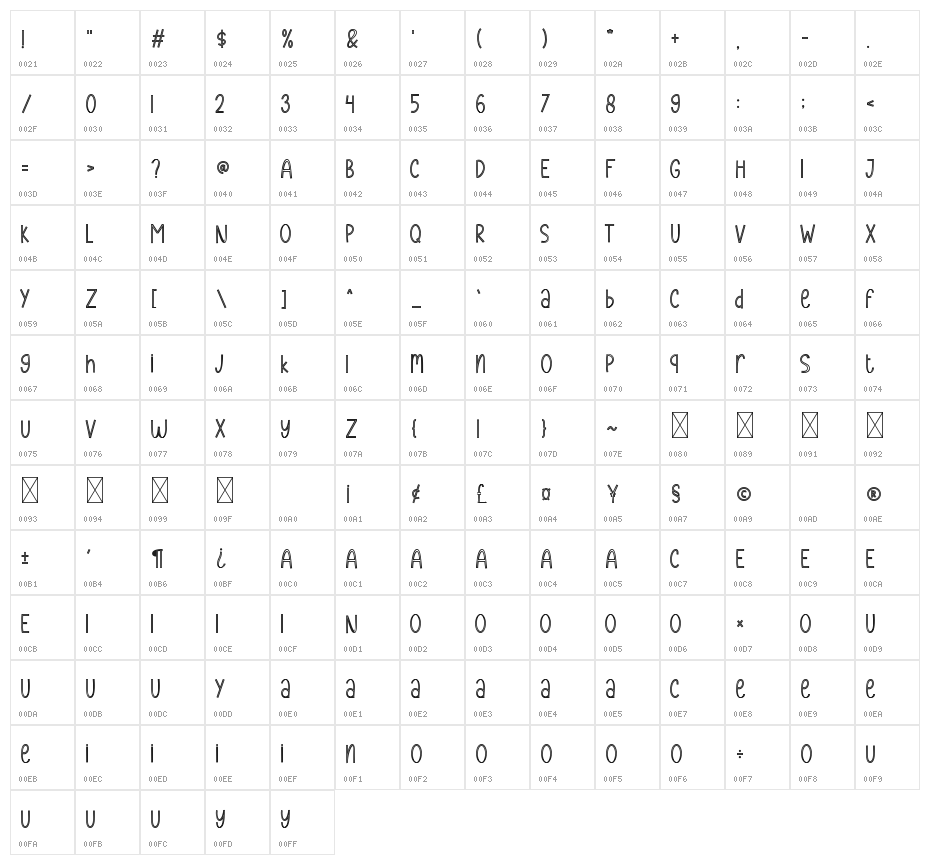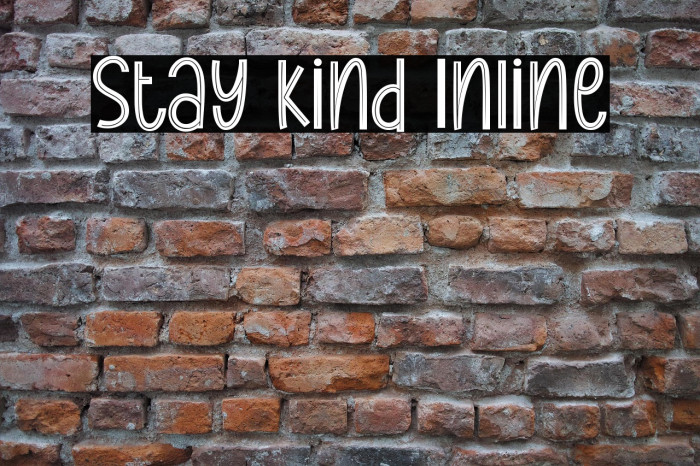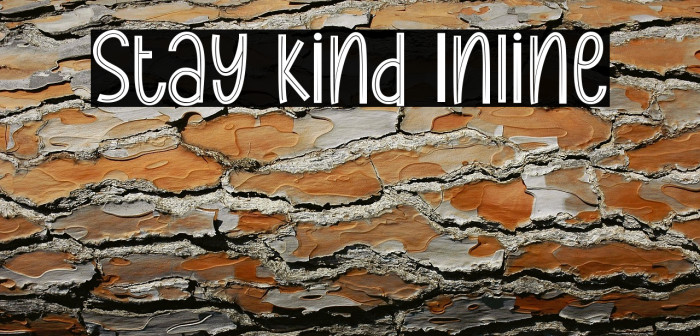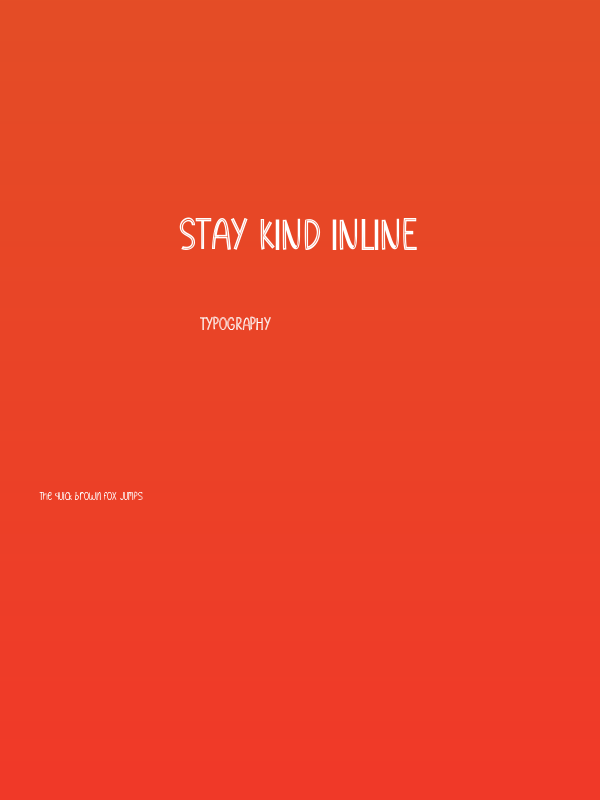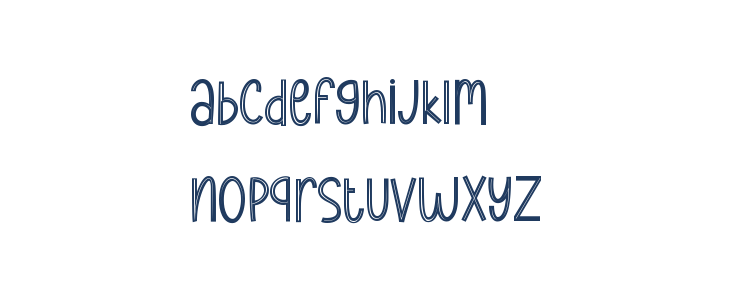
Stay Kind Inline Font
Stay Kind Inline Description
This font features a playful and whimsical design with an inline style that adds a unique touch to each character. The uppercase and lowercase letters are crafted with a consistent stroke width, creating a harmonious appearance. The numbers and special characters maintain the same playful aesthetic, making them suitable for a variety of creative projects. The font's inline detail adds depth and interest, making it stand out in any design. Its overall style is both modern and decorative, perfect for adding a fun and engaging element to your work.
| Overall Style | Modern, Decorative |
| Proposed Projects | Ideal for children's books, playful branding, greeting cards, and creative posters. |